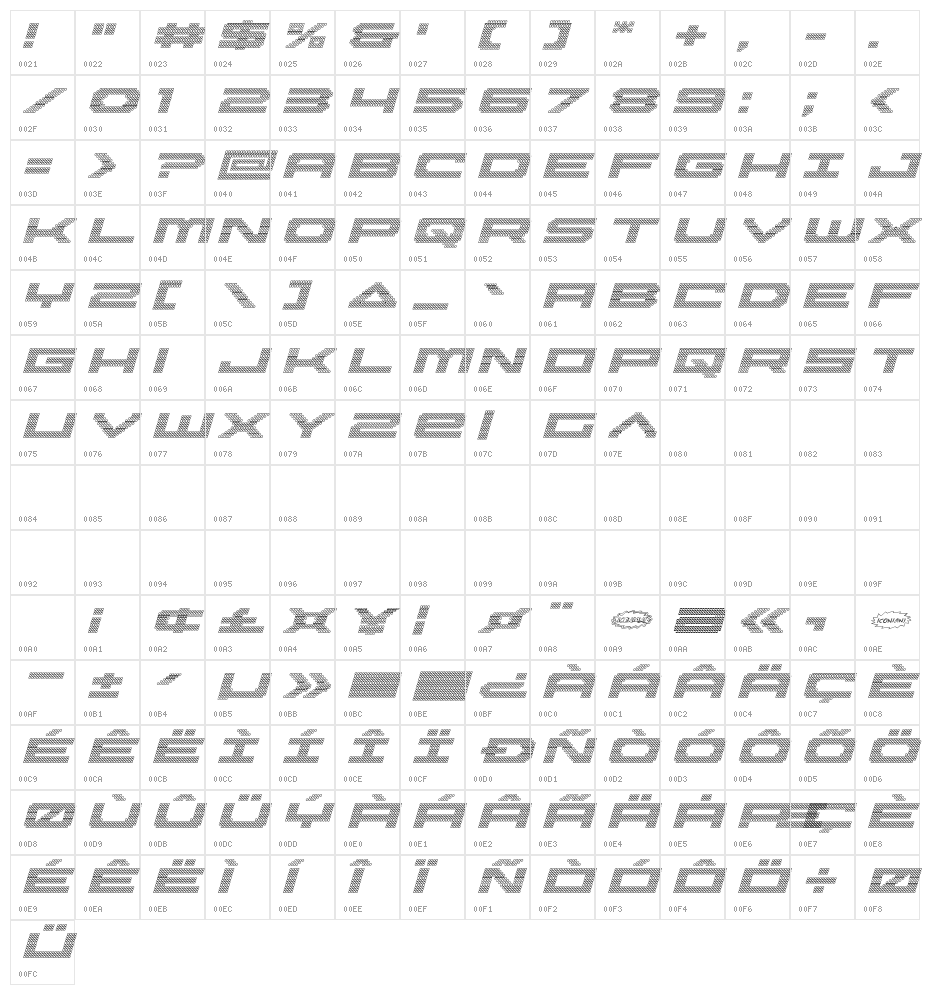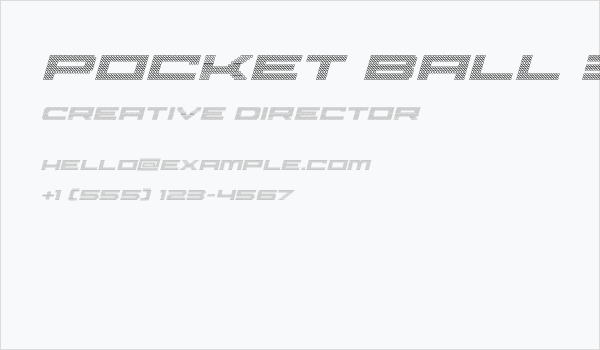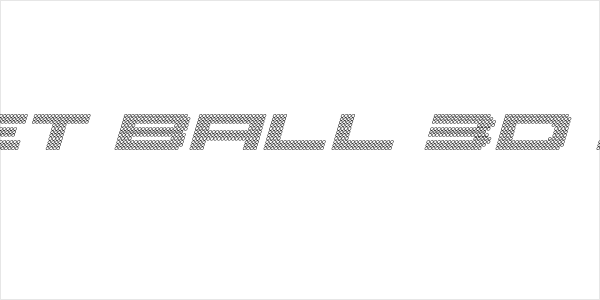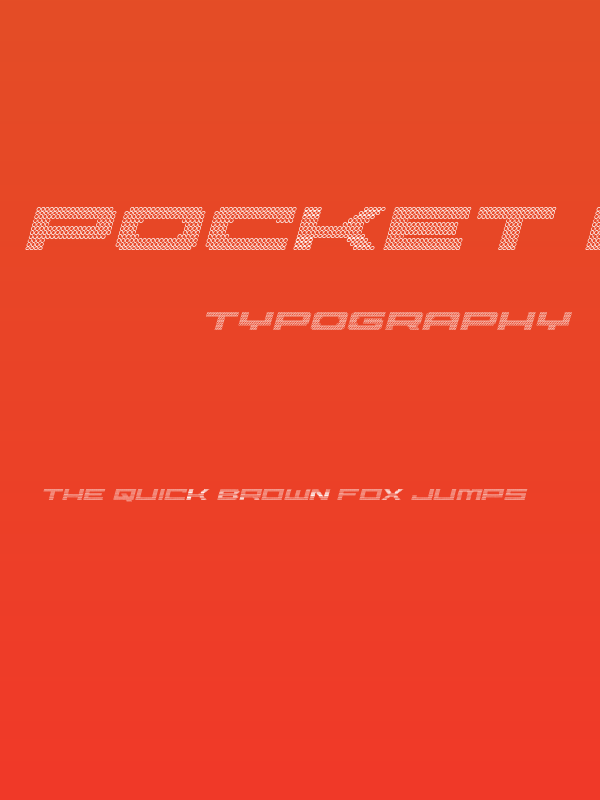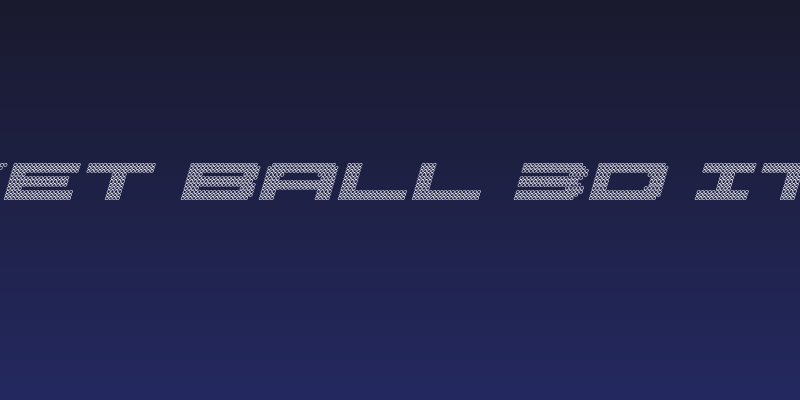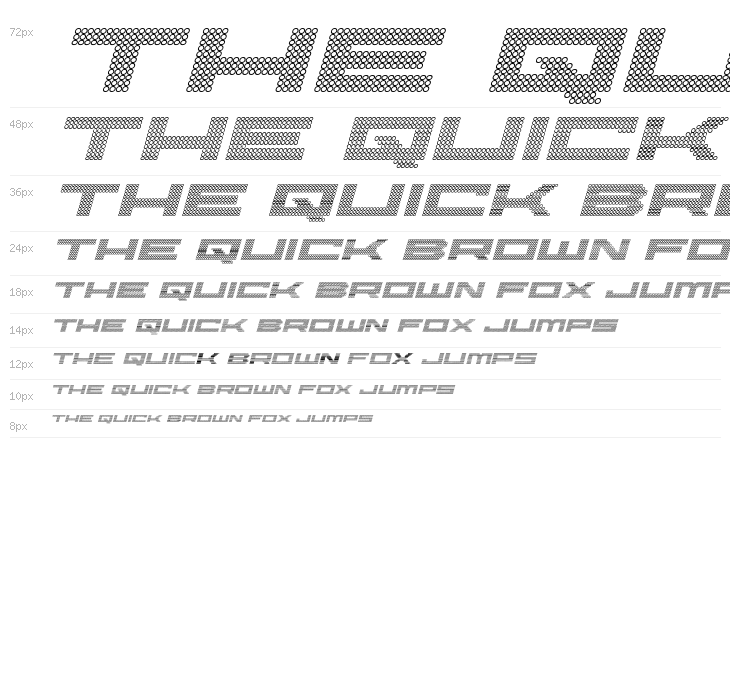
Pocket Ball 3D Italic Font
Pocket Ball 3D Italic Description
This font features a dynamic and futuristic design with a distinct 3D effect, created by a pattern of diagonal lines that give each character a textured appearance. The italicized style adds a sense of motion and speed, making it ideal for projects that require a modern and energetic feel. The uppercase and lowercase letters are consistent in style, maintaining the same diagonal pattern throughout. Numbers and special characters are also included, each with the same unique design. The font's bold and striking appearance makes it suitable for attention-grabbing headlines or logos.
| Proposed Projects | Ideal for video game titles, tech branding, sports logos, and futuristic-themed posters. |